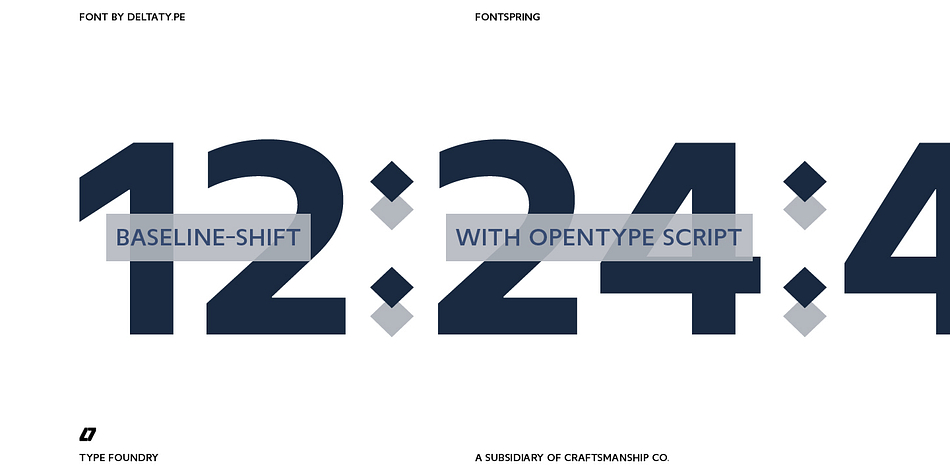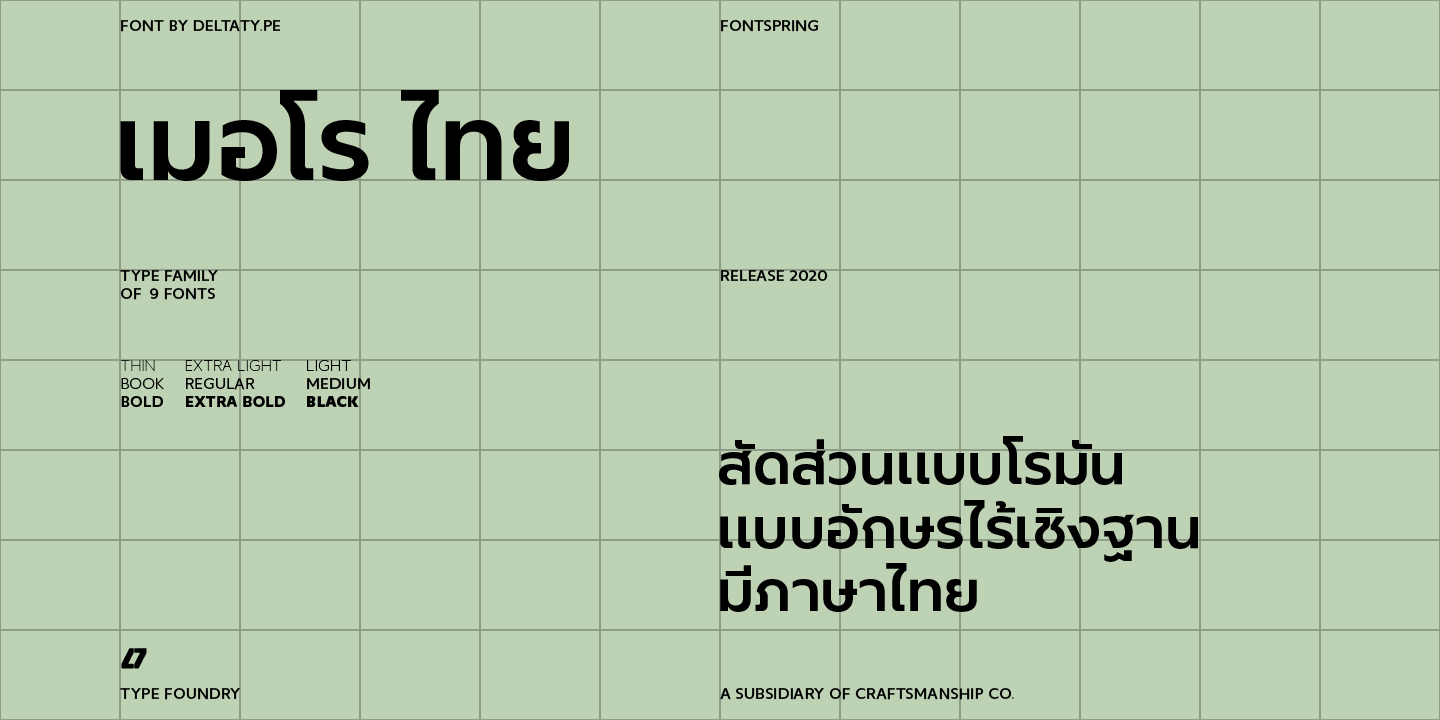
Mero Thai
Designed by Kwanchai Akkaratammagul and Phatcharaphat Chatthawatthanathon, Mero Thai is a sans serif font family. This typeface has nine styles and was published by Deltatype.
Mero inspired by the Roman Capital Proportions which we have seen in Trajan Inscription. With different widths; There are applied each letter to visual proportion. Mero inspired by this measurement method and would like to create the primary typeface in terms of simple form. This sans serif typeface designed to use for any media with a little notice from designer eyes. You won’t notice much about style, but something will let you feel extraordinary and trust.
Mero has supported over 30 languages and come with nine weights for a complete family. With the standard of CSS font-weight, Mero complete family will map beautifully for your digital layout.